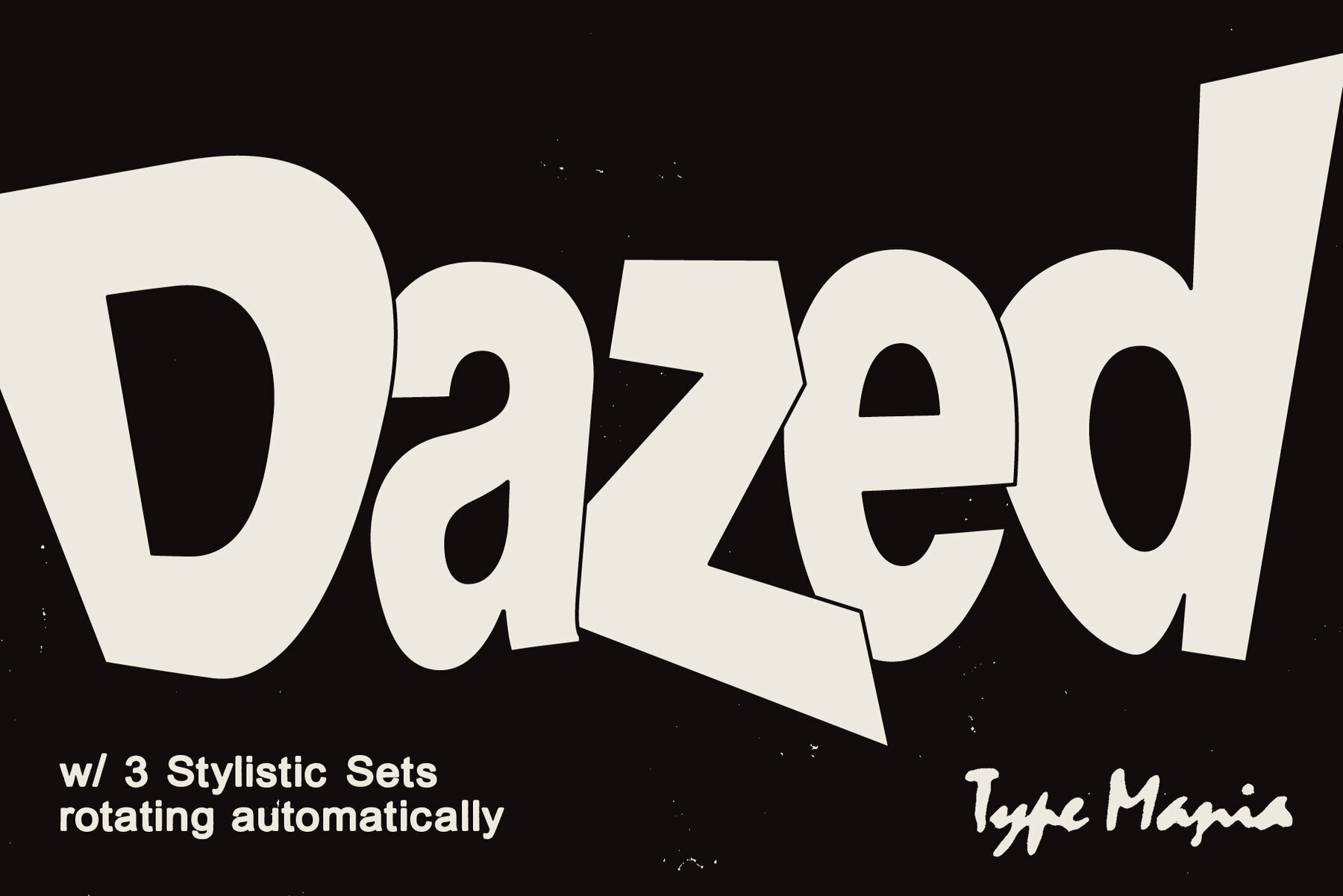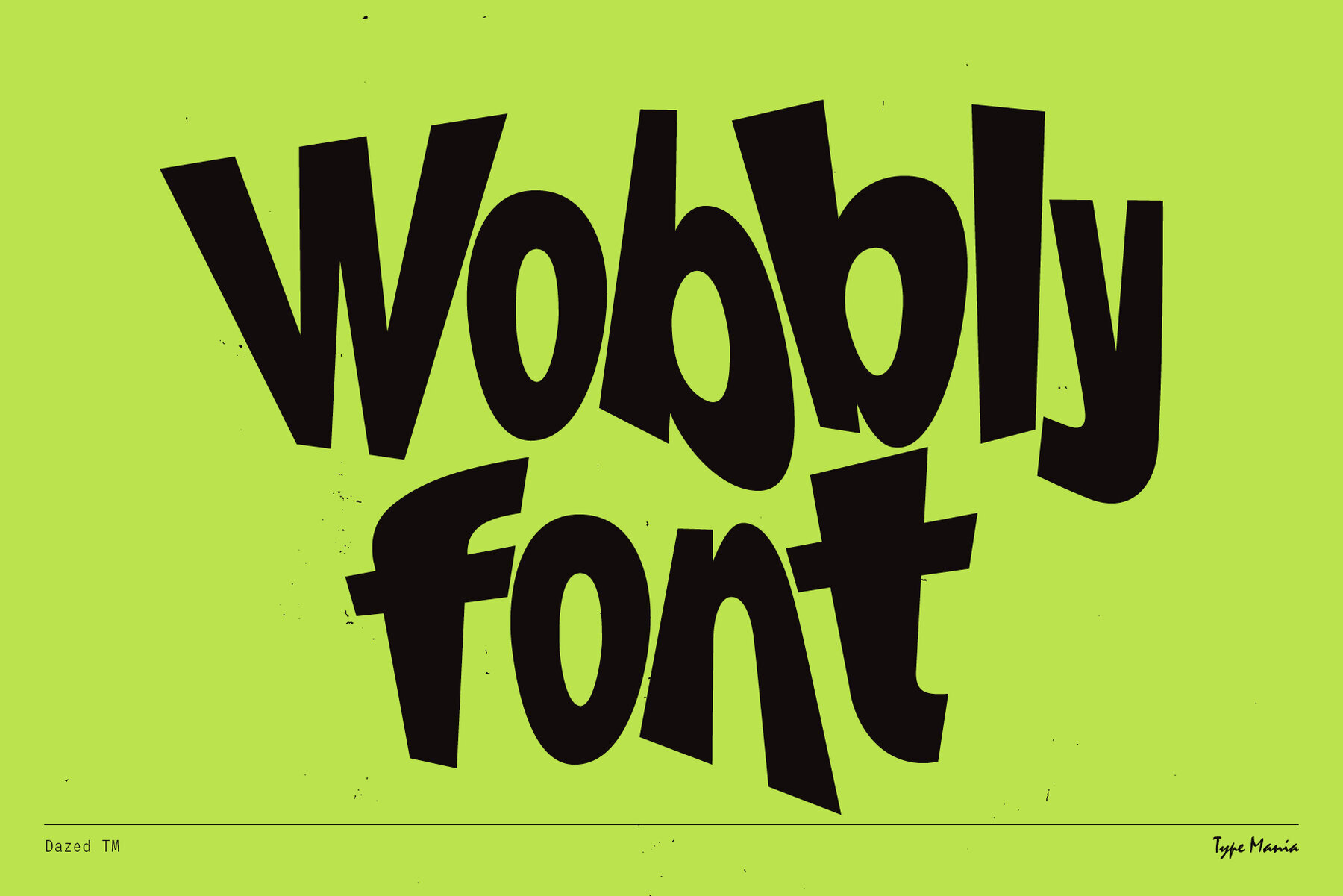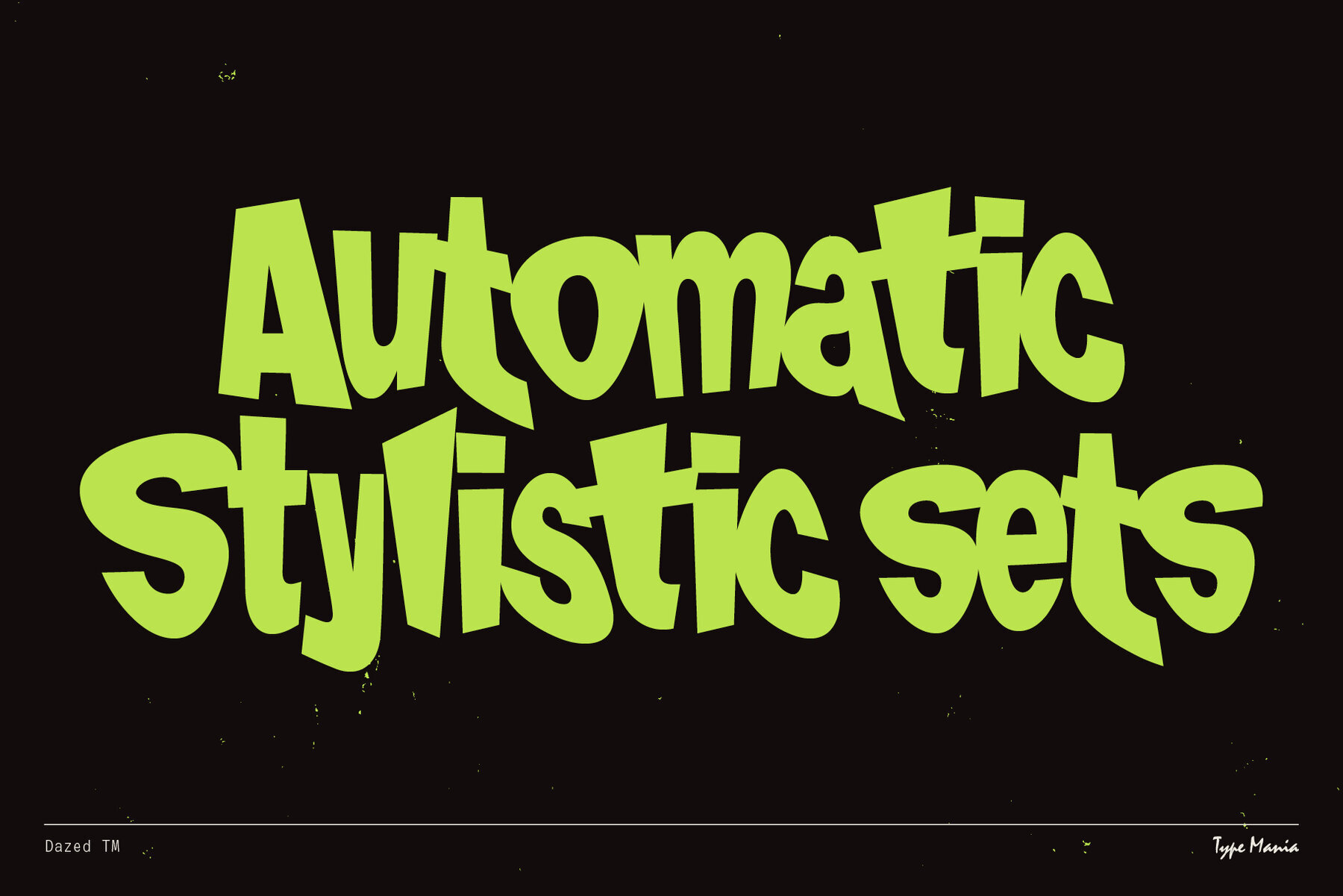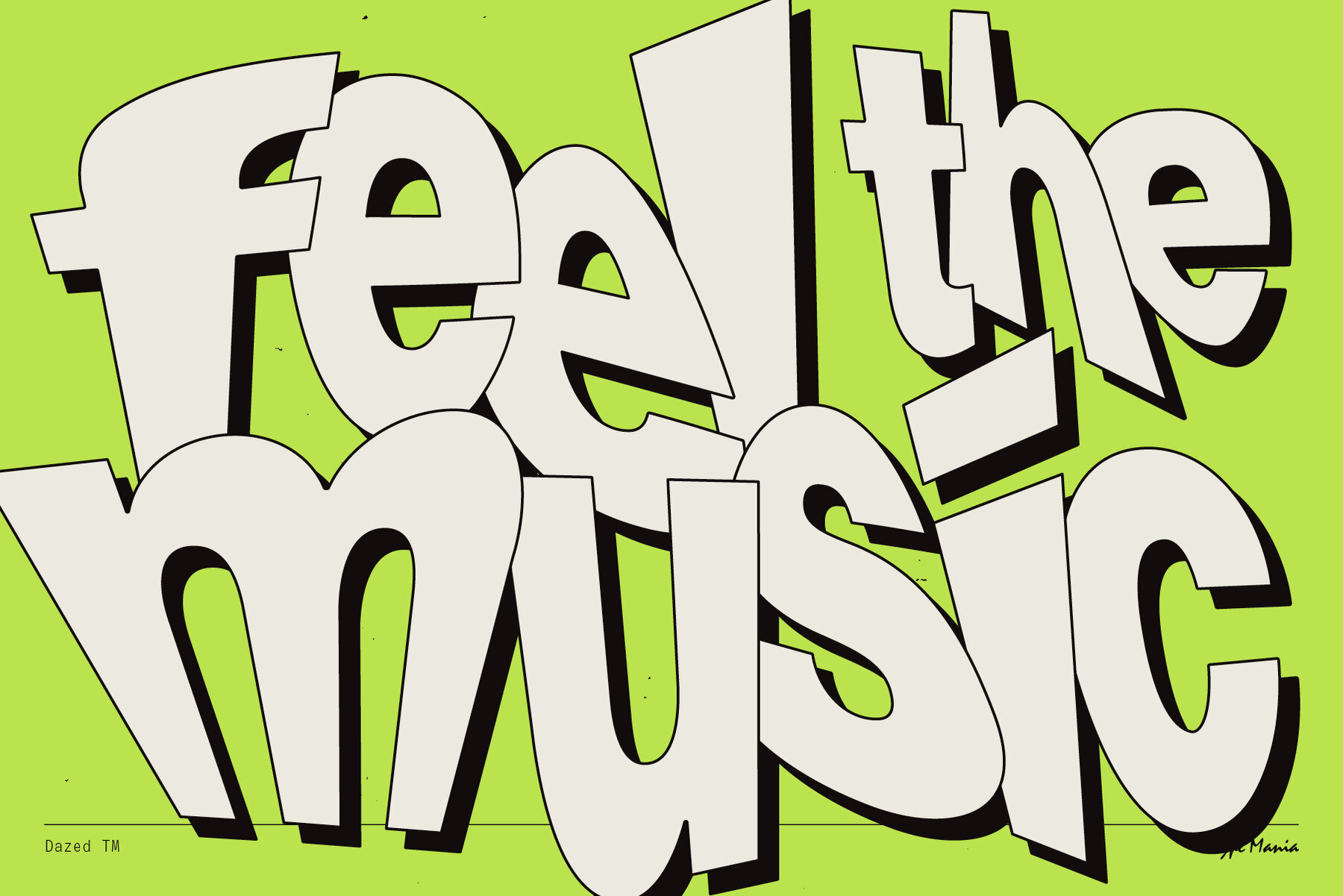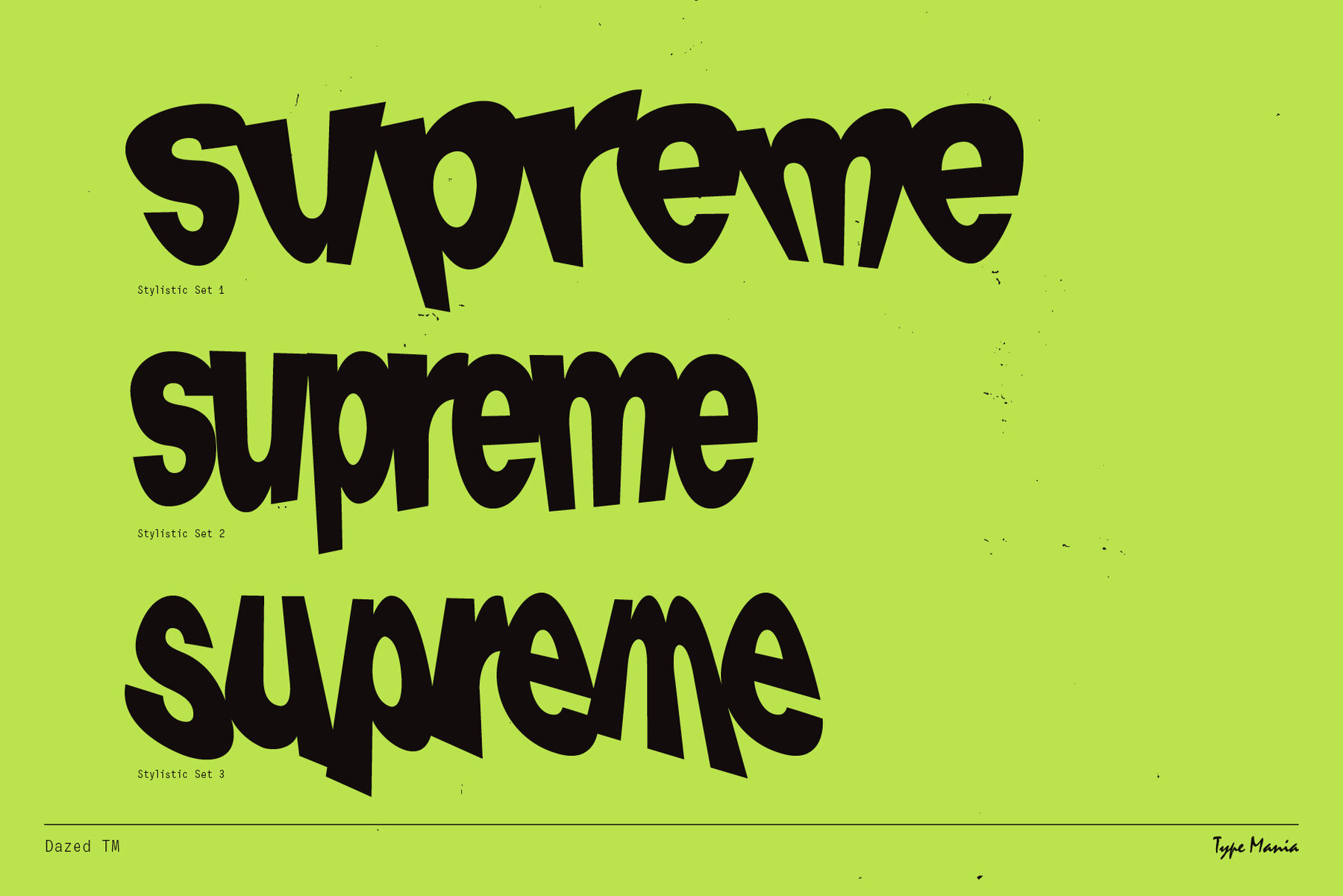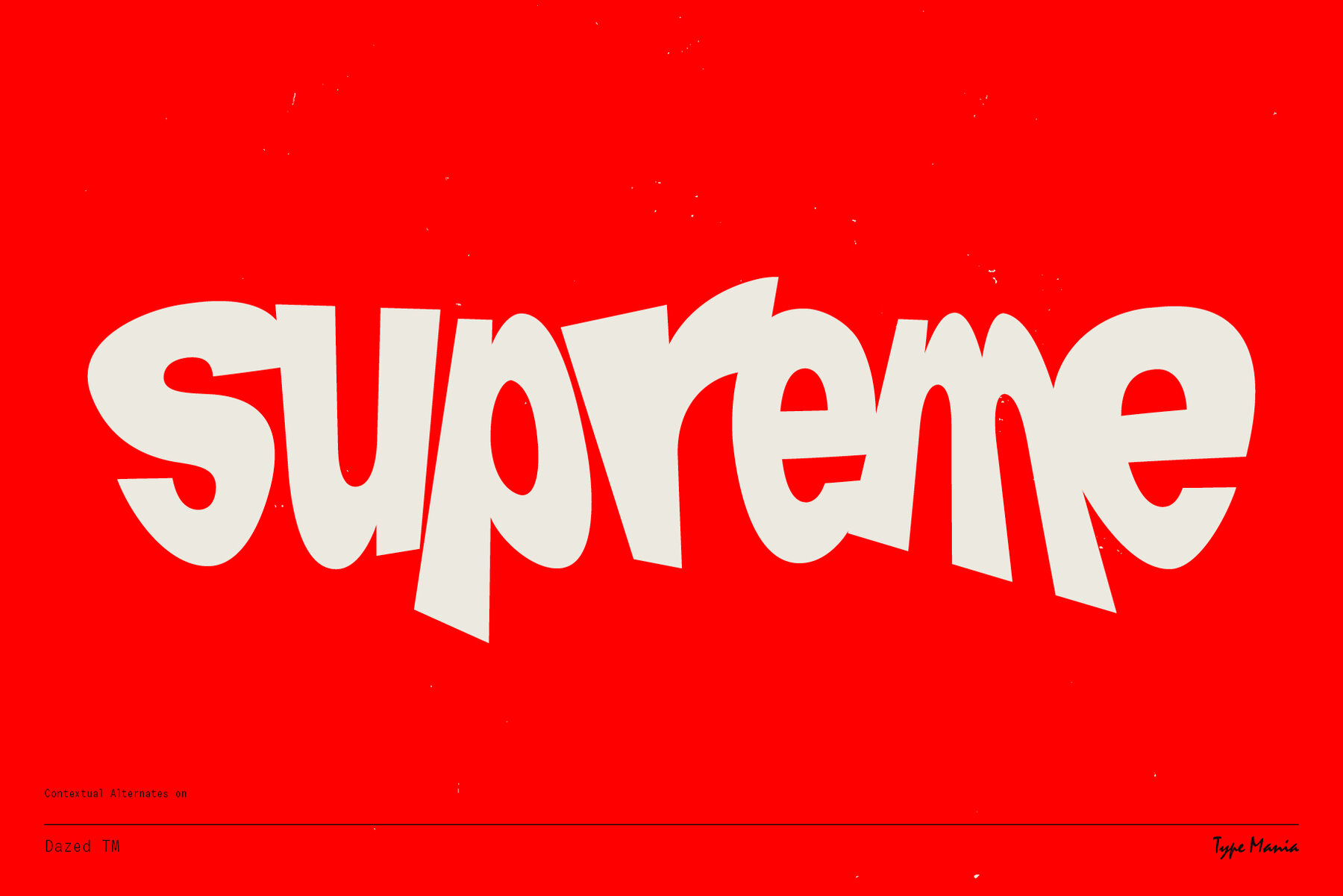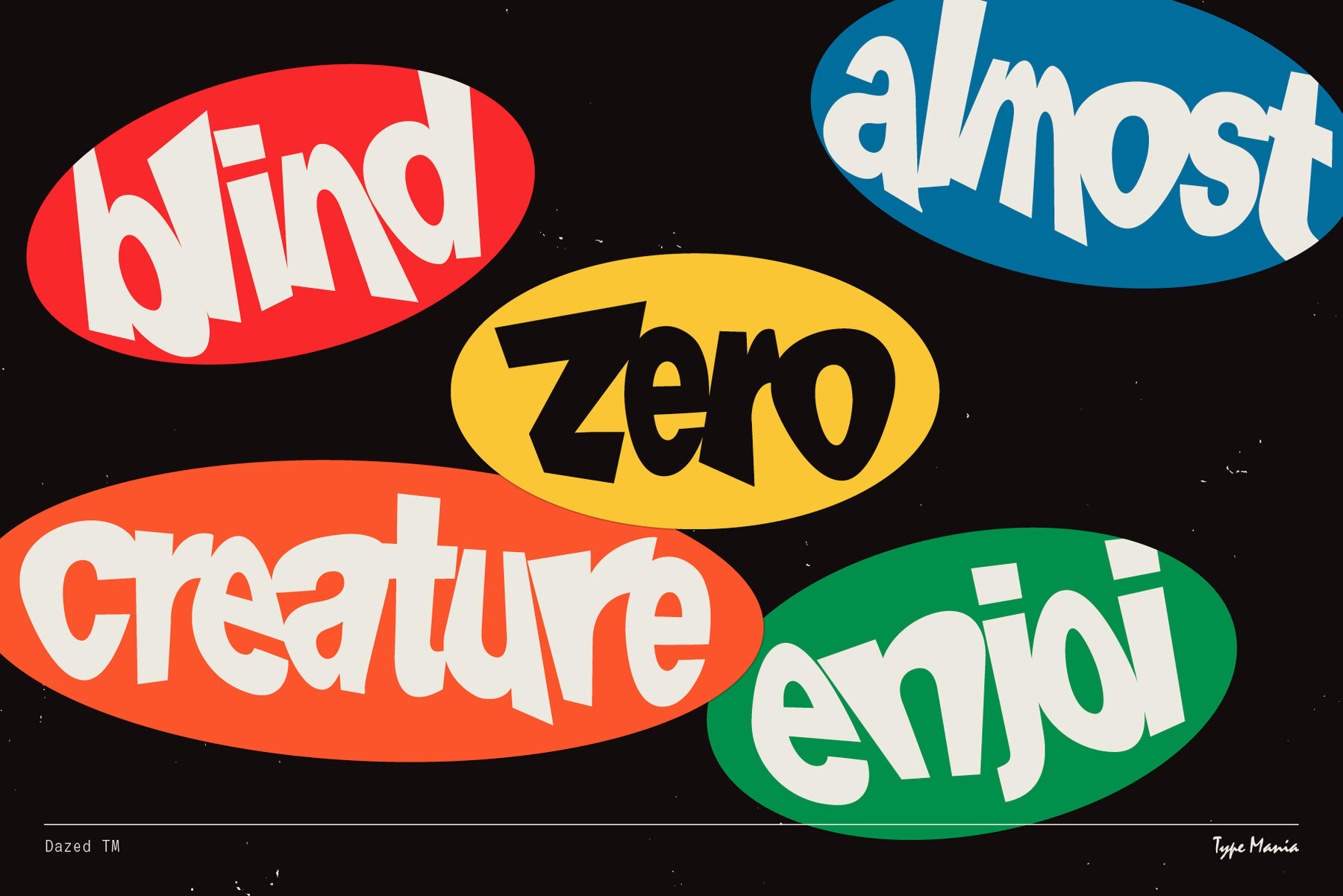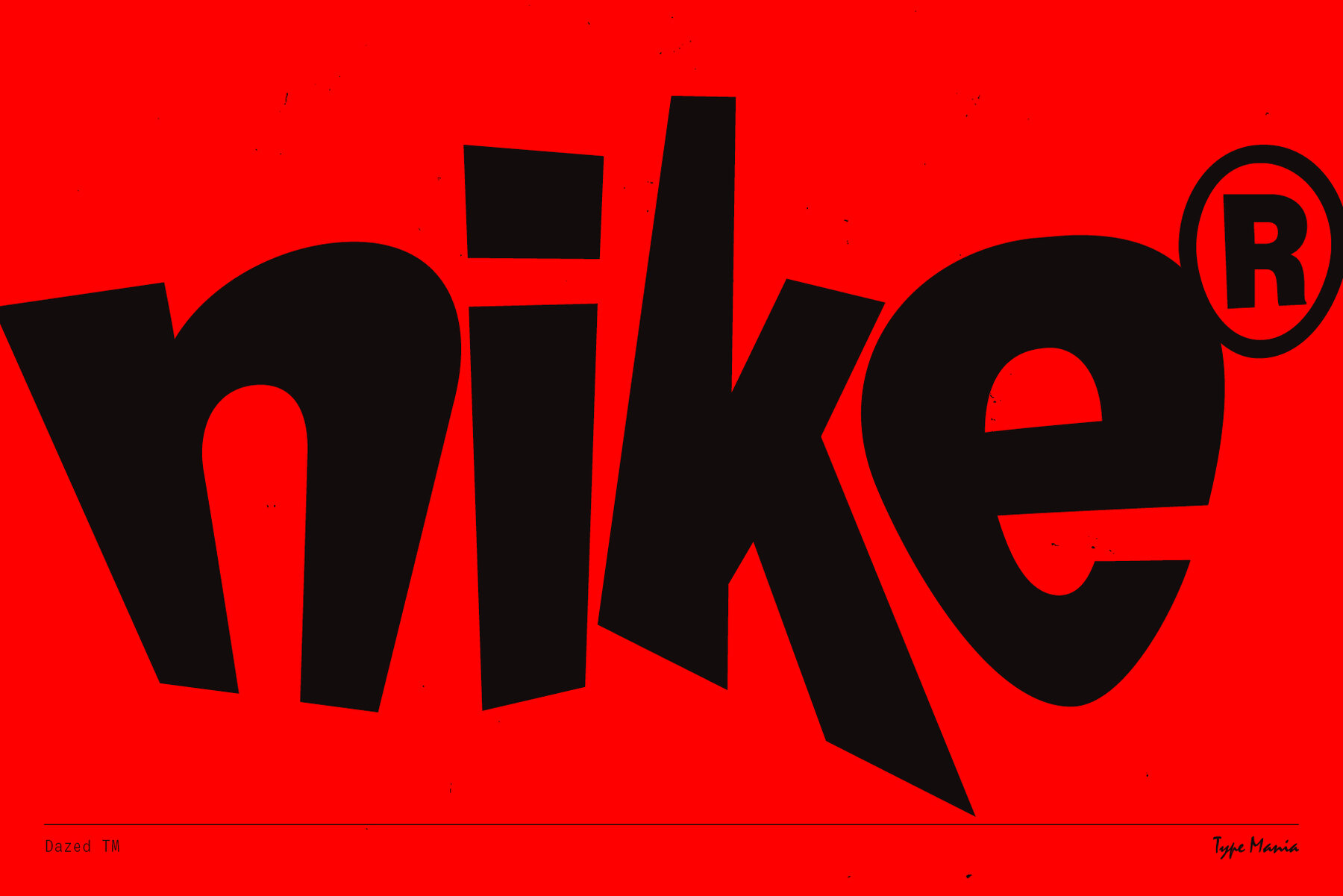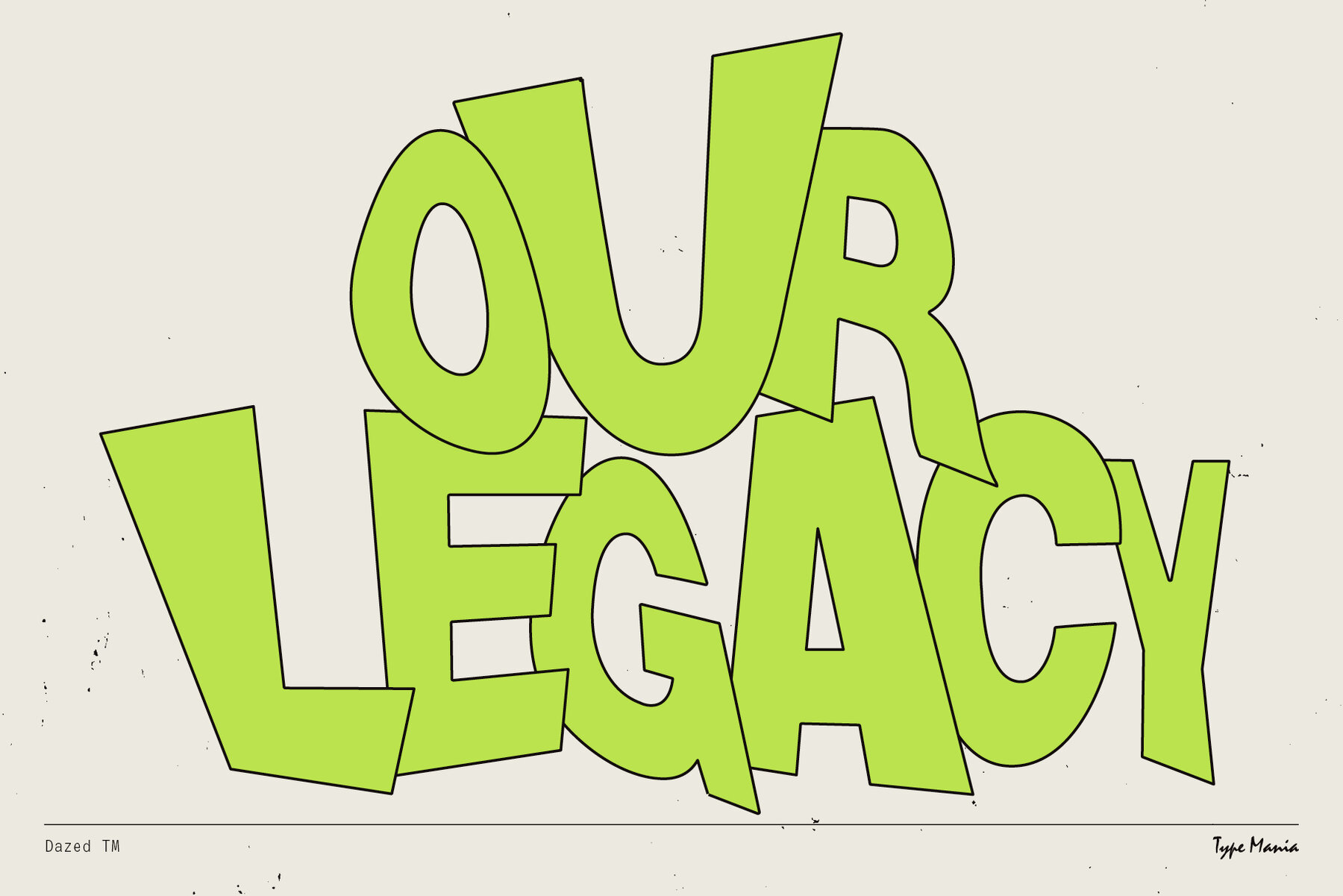
Dazed TM Font
Dazed TM Regular
Dazed TM is a typeface that challenges traditional norms with its unique, bouncy feel. Ideal for offbeat branding and editorial use, it ensures each word is fluid and unpredictable, providing a playful and freeform aesthetic for creative projects. Stylistic Variety: Dazed TM includes three automatic stylistic sets that offer dynamic text rendering when Contextual Alternates are enabled. This feature allows designers to bring variety and motion to their typography effortlessly. OpenType Support: With advanced OpenType features, Dazed TM enhances versatile design applications, making it suitable for a range of creative needs. Extensive Language Inclusion: This typeface supports Basic Latin, Western and Central European languages, Euro, and Pan African Latin, providing broad accessibility for global projects. Dazed TM is a fitting choice for designers aiming to inject a playful, freeform aesthetic into their work, making it a perfect addition for those in need of an unconventional typeface.Dazed TM: Dynamic and Unconventional Typeface
Key Features of Dazed TM